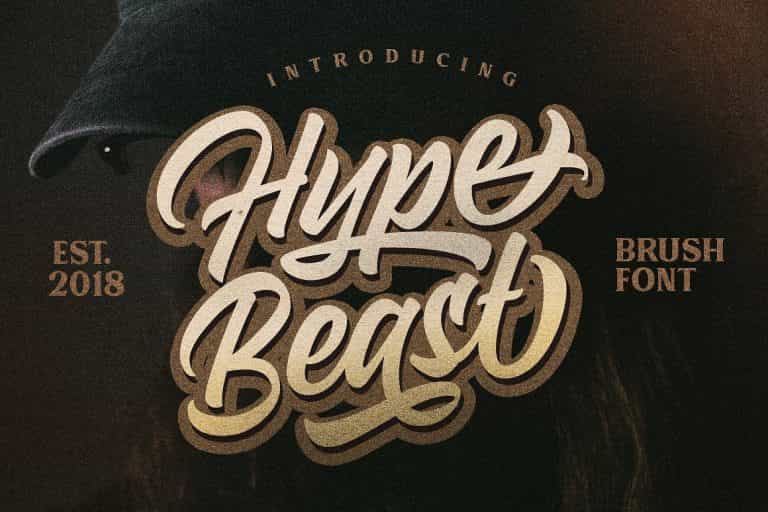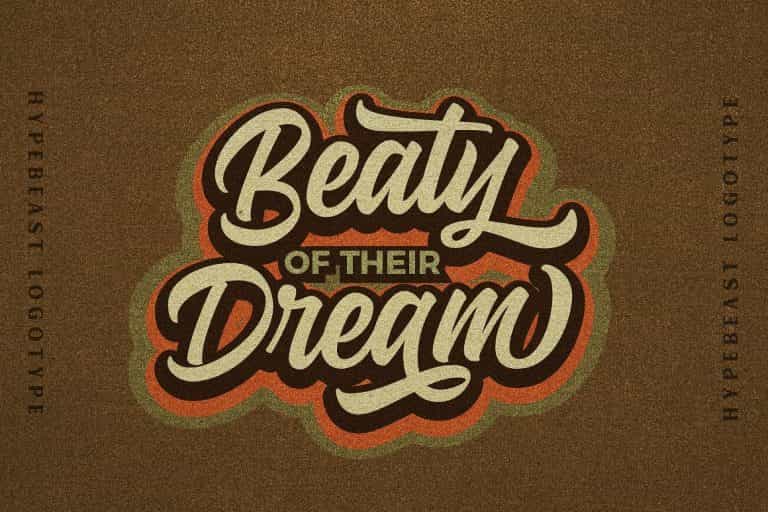
Introducing Hypebeast Script font, inspired by contemporary fashion and streetwear. It comes with a combination of hand lettering styles. I’ve made with personality touch of every single curve. Hopefully it can inspire you from your work. It has a very bouncy baseline that brings a perfectly paired complimentary marker font. It includes a super handy set of bonus Swashes and ideal for logos, handwritten quotes, product packaging, header, poster, merchandise, social media & greeting cards.